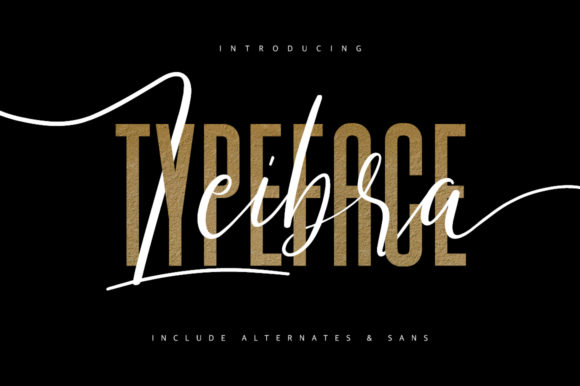
Embrace the charm of handcrafted elegance with Leibra Duo Font, the enchanting script font family that will bring a touch of authenticity to your designs. Immerse yourself in a world of creativity as you explore the boundless possibilities that Leibra Duo offers.
With its two captivating styles, Leibra Duo grants you the freedom to craft designs that stand out from the crowd. Its meticulously crafted curves and delicate details evoke a sense of genuine artistry, inviting your audience to connect with your creations on a deeper level. Whether you're designing logos, stationery, or website headers, Leibra Duo will lend an air of sophistication and charm to every project you undertake.
Step into the realm of typography and unleash your imagination with Leibra Duo. Its versatile nature makes it a perfect companion for an array of applications, from book covers to magazine spreads. Let your words dance across the page, adorned with the beauty of Leibra Duo's flowing lines and graceful swashes. Your designs will captivate and enchant, leaving an indelible mark on the minds of your audience.
Experience the allure of Leibra Duo and transform your designs into works of art that resonate with authenticity and creativity. Its enchanting style will elevate your projects to new heights, captivating your audience and leaving them spellbound. Embrace the power of Leibra Duo and unlock the true potential of your artistic vision.